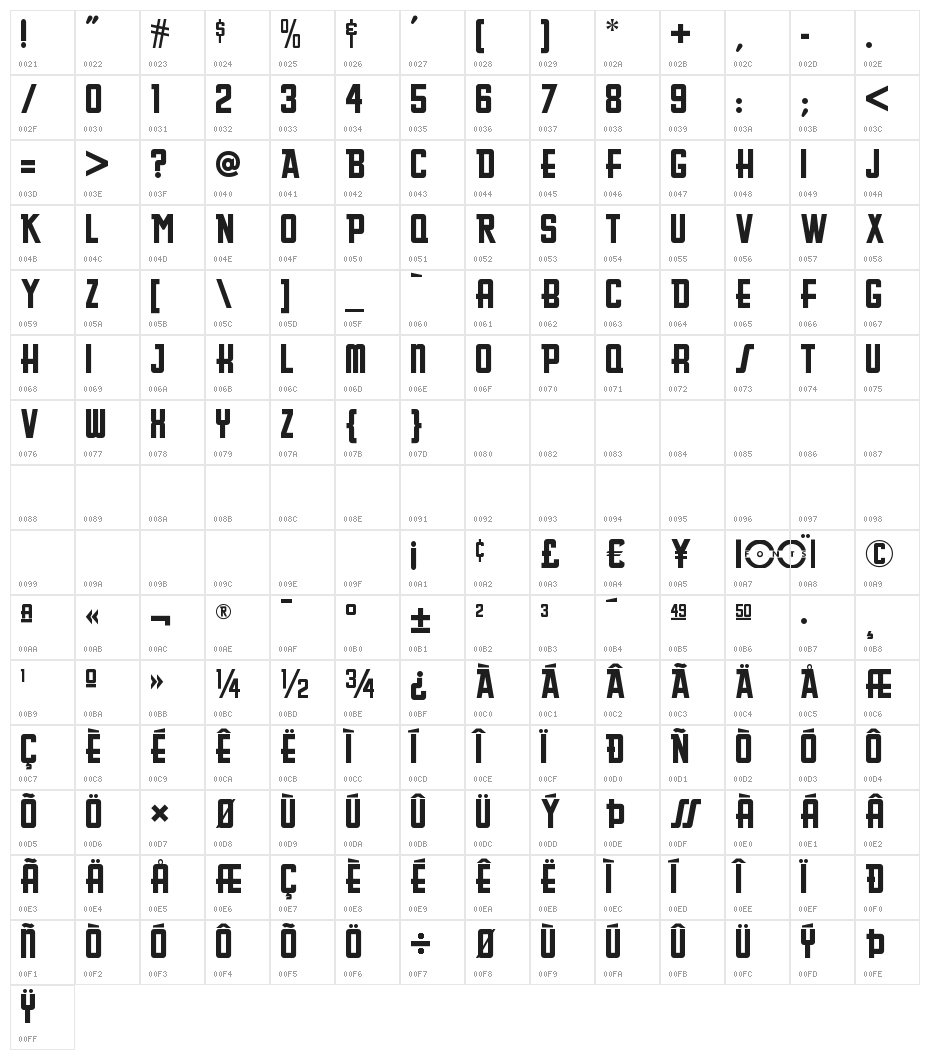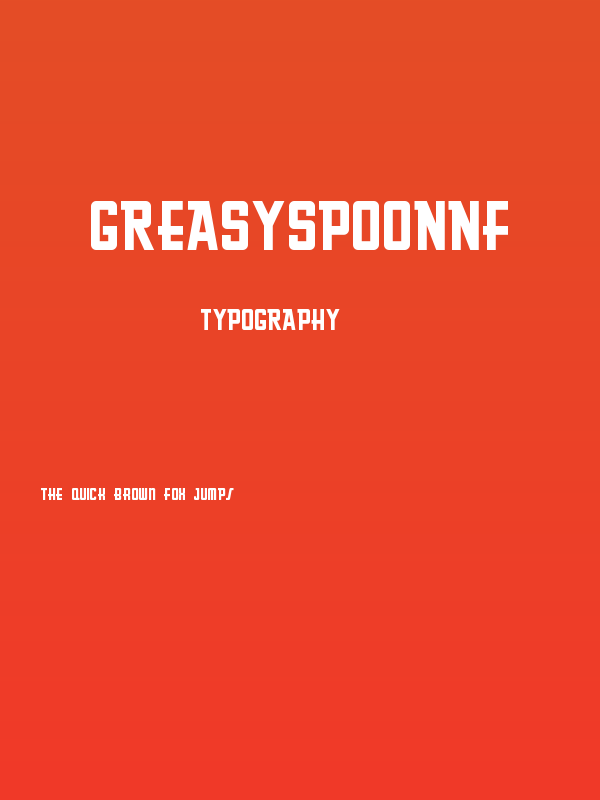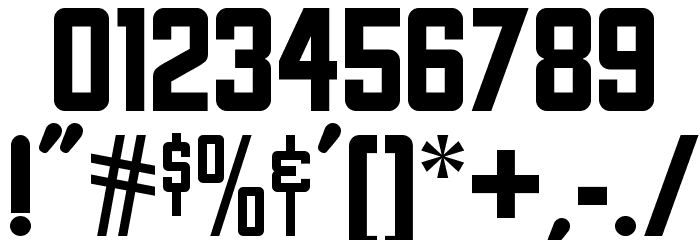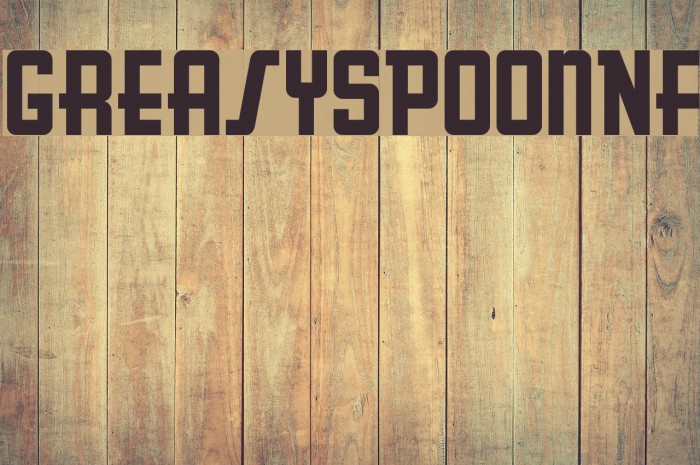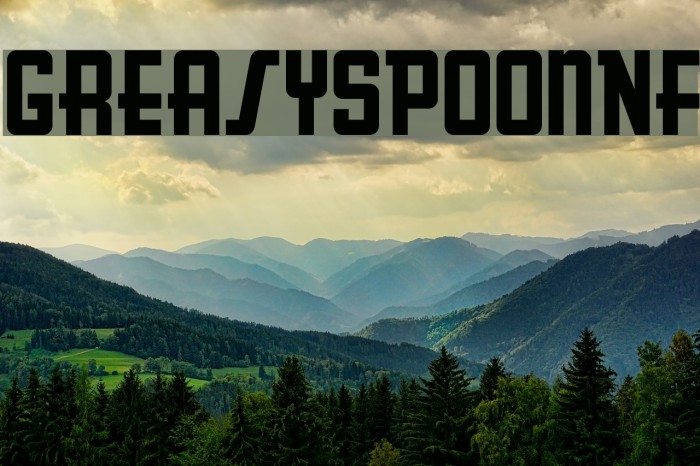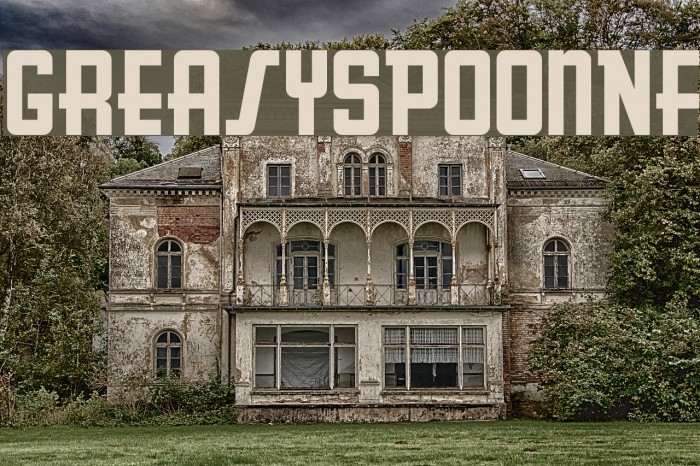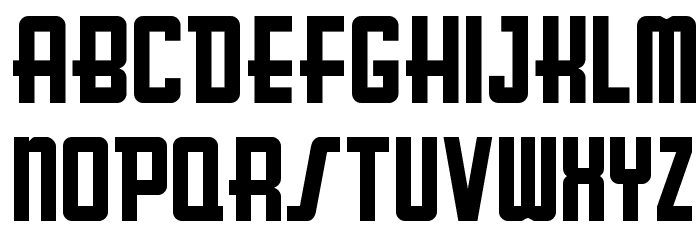
GreasySpoonNF Font
GreasySpoonNF Description
This font features a bold, geometric design with a strong presence. The characters are blocky and angular, giving it a distinct and assertive look. The uppercase and lowercase letters maintain a consistent style, with sharp edges and uniform stroke widths. Numbers and special characters follow the same bold aesthetic, ensuring a cohesive appearance across all glyphs. The font's design is reminiscent of vintage signage, making it ideal for projects that require a retro or industrial feel. Its boldness and clarity make it suitable for impactful headlines and attention-grabbing displays.
| Proposed Projects | Ideal for retro-themed posters, signage, branding, and headlines. |